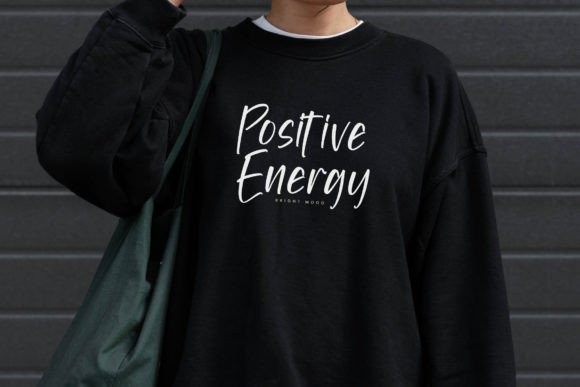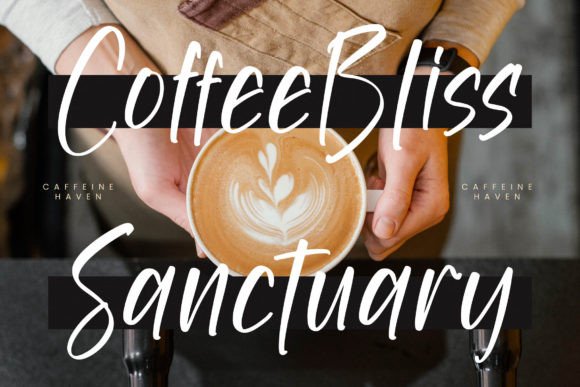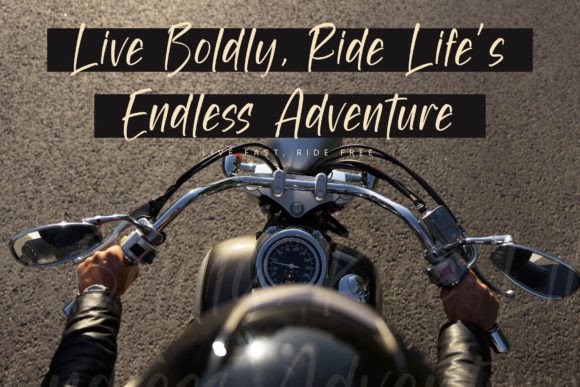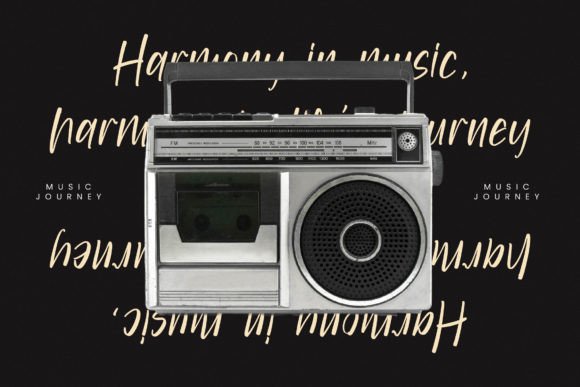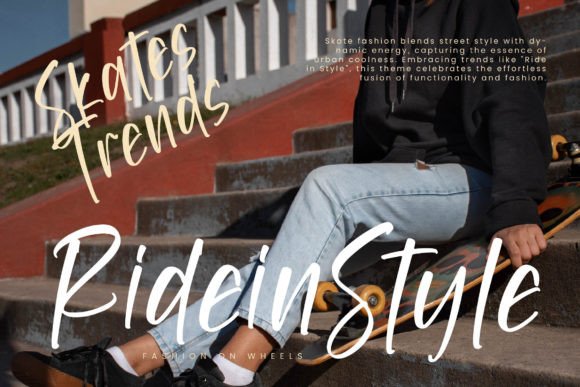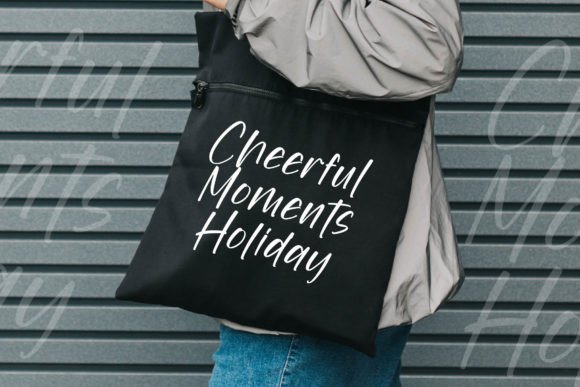
Introducing Bookshelf Infinites Font: The Ultimate Rough Handwritten Font for Luxury Projects
Are you a designer or crafter looking for a unique and premium font to elevate your projects? Look no further than Bookshelf Infinites Font, a rough handwritten font that is perfect for a wide range of luxury projects. From logos and branding to homewares designs, product packaging, and more, this versatile font is sure to add a touch of sophistication and elegance to your work.
What is Bookshelf Infinites Font?
Bookshelf Infinites Font is a carefully crafted, rough handwritten font that is designed to add a personal and human touch to your projects. With its unique blend of elegance and playfulness, this font is perfect for designers and crafters who want to create luxury projects that stand out from the crowd. Whether you’re working on a logo, branding project, or product design, Bookshelf Infinites Font is the perfect choice.
Key Features of Bookshelf Infinites Font
- Unique and Handwritten: Bookshelf Infinites Font is a one-of-a-kind, rough handwritten font that adds a personal touch to your projects.
- Versatile: This font is perfect for a wide range of projects, including logos, branding, homewares designs, product packaging, and more.
- Premium Taste: With its elegant and sophisticated design, Bookshelf Infinites Font is perfect for luxury projects that require a high-end feel.
- Easily Customizable: This font is easy to customize, making it perfect for designers and crafters who want to add their own personal touch to their projects.
Bookshelf Infinites Font is perfect for a wide range of projects, including:
- Logos and Branding: Create a unique and memorable logo or brand identity with Bookshelf Infinites Font.
- Homewares Designs: Add a touch of elegance to your homewares designs, including ceramics, textiles, and more.
- Product Packaging: Elevate your product packaging with a premium and sophisticated font.
- Mugs and Apparel: Create custom mugs, t-shirts, and other apparel with a unique and eye-catching font.
- Posters and Quotes: Add a touch of elegance to your posters and quotes with Bookshelf Infinites Font.
- Shopping Bags and Labels: Create custom shopping bags and labels that reflect your brand’s premium taste.
- Books and Covers: Design beautiful book covers and interiors with Bookshelf Infinites Font.
- Business Cards and Invitation Cards: Create custom business cards and invitation cards that make a lasting impression.
- Greeting Cards and Special Events: Add a touch of elegance to your greeting cards and special events, including weddings, birthdays, and more.
Why Choose Bookshelf Infinites Font?
There are many reasons why designers and crafters choose Bookshelf Infinites Font for their luxury projects. Here are just a few:
- Unique and Exclusive: Bookshelf Infinites Font is a one-of-a-kind font that will set your projects apart from the crowd.
- High-Quality Design: This font is carefully crafted with attention to detail, ensuring a high-quality design that reflects your brand’s premium taste.
- Easily Readable: Despite its handwritten nature, Bookshelf Infinites Font is easily readable, making it perfect for a wide range of projects.
- Customizable: This font is easy to customize, allowing you to add your own personal touch to your projects.
In conclusion, Bookshelf Infinites Font is the ultimate rough handwritten font for luxury projects. With its unique blend of elegance and playfulness, this font is perfect for designers and crafters who want to create premium projects that stand out from the crowd. Whether you’re working on a logo, branding project, or product design, Bookshelf Infinites Font is the perfect choice. So why wait? Download Bookshelf Infinites Font today and elevate your projects to the next level!